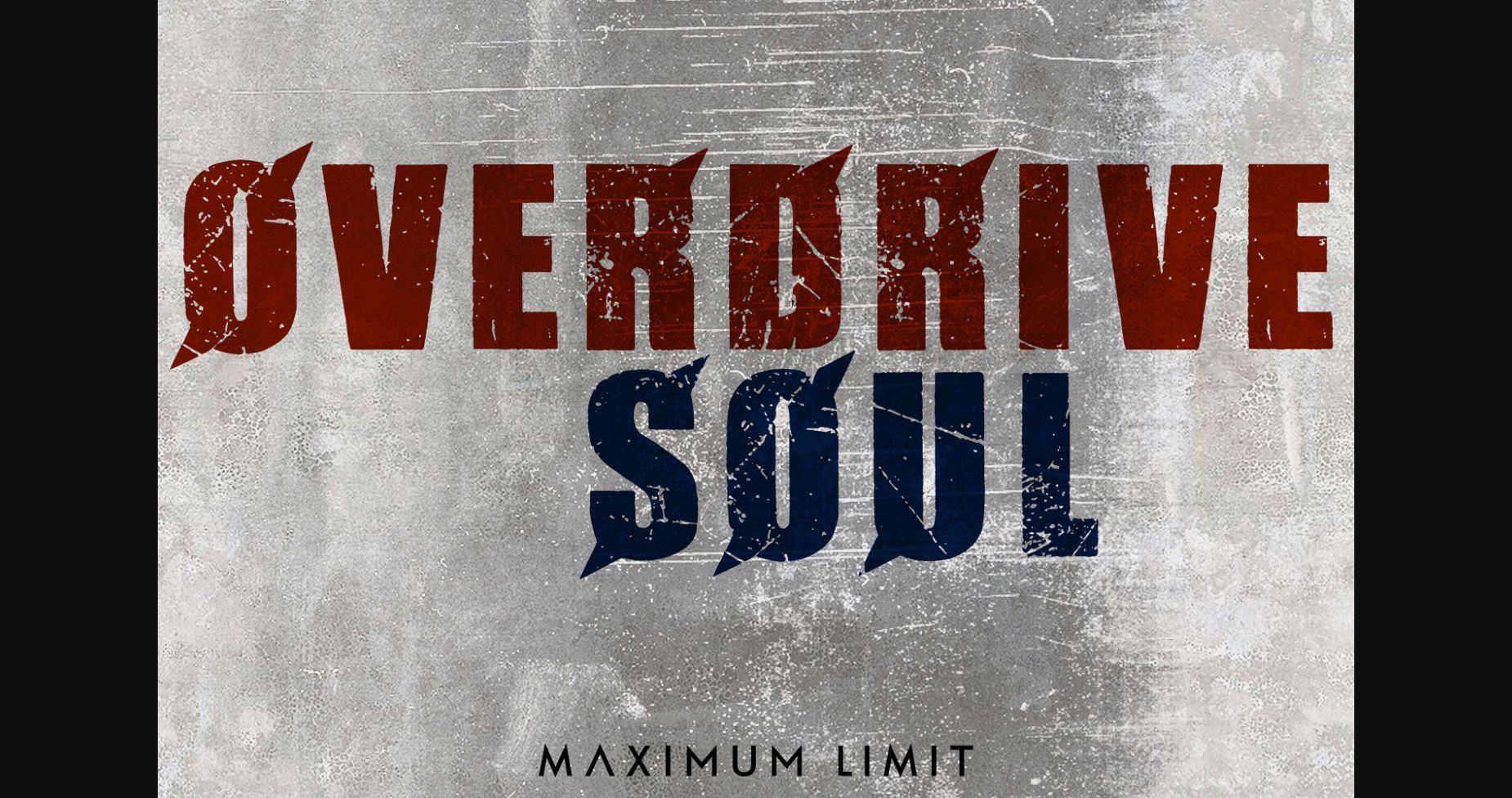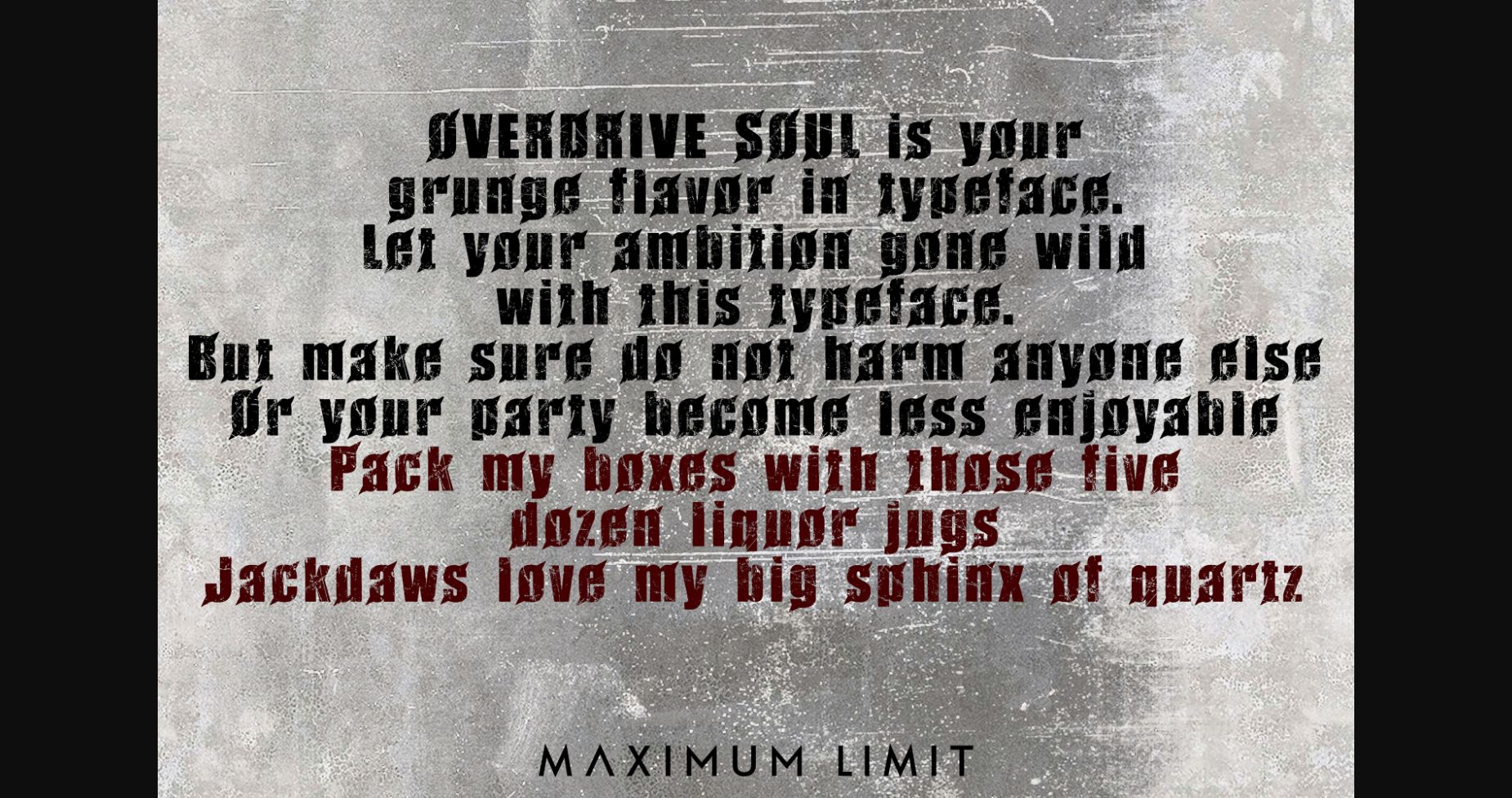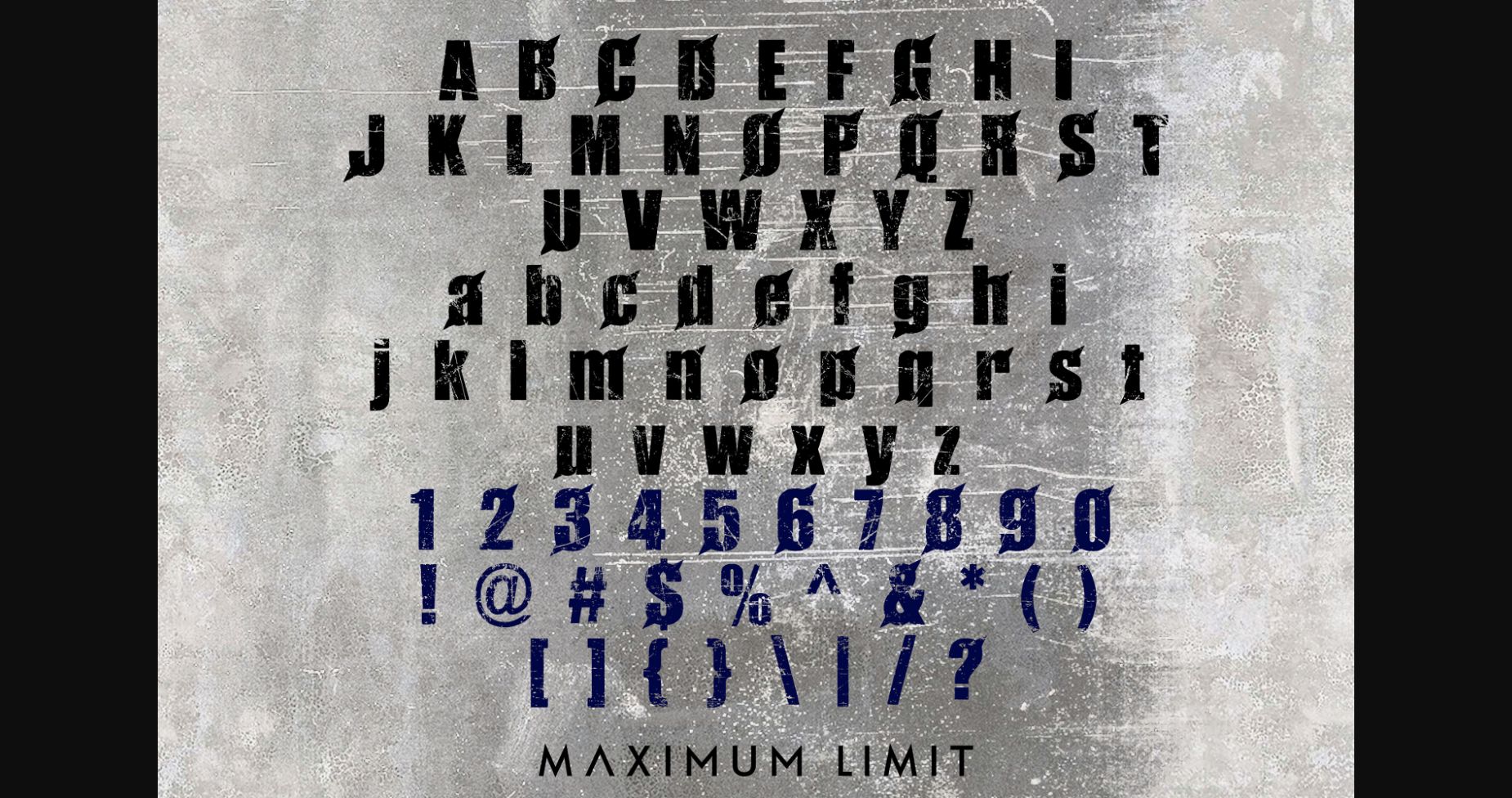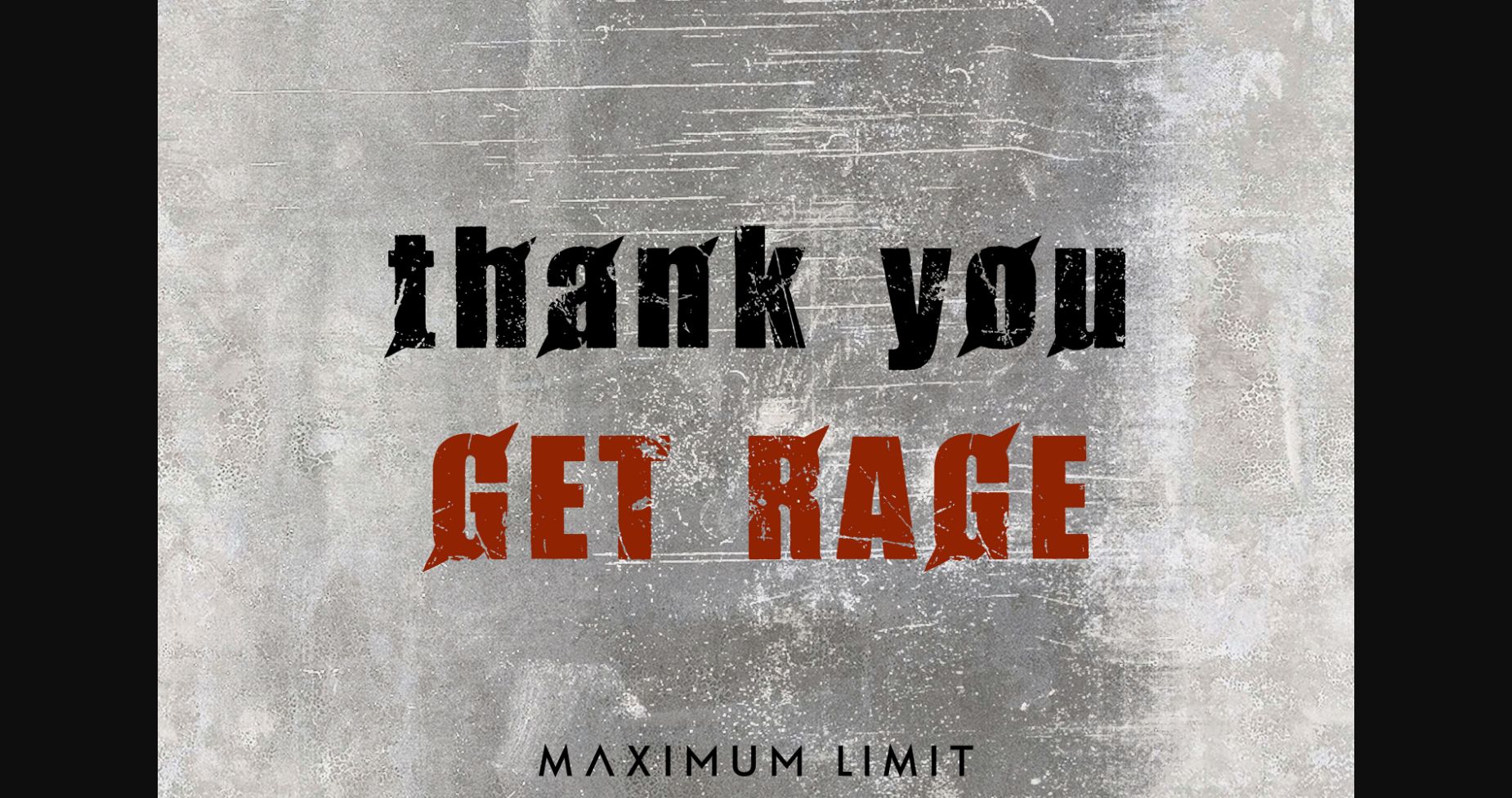
About Overdrive Soul Font
Overdrive Soul is your grunge flavor in a typeface. Let your ambition gone wild with this typeface. But make sure do not harm anyone else, or your party becomes less enjoyable. Perfect for your punk and grunge style.